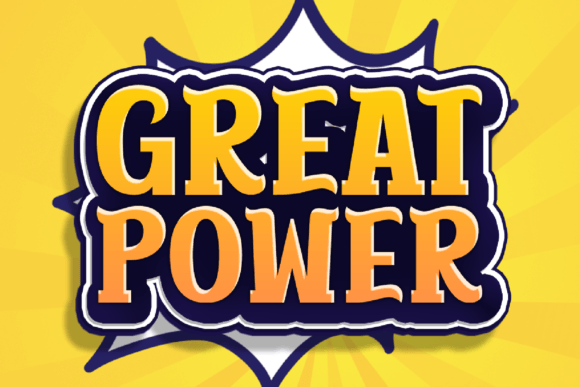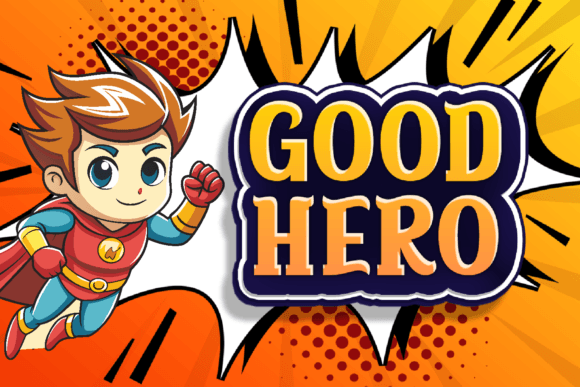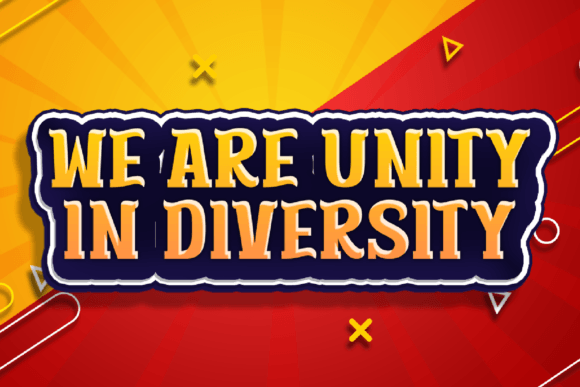
Dream Game Font: The Ultimate Choice for Children’s Comics and Playful Designs
Are you a designer, illustrator, or crafter looking for a font that can bring your children’s comic or playful design to life? Look no further than the Dream Game font! This stunning display font is specifically designed to add an energetic and engaging style to your work, making reading fun and visually exciting for young audiences.
The Charm of Dream Game Font
Dream Game font is the go-to choice for any children’s comic or playful design, and for good reason. Its hand-drawn charm and dynamic forms bring a level of personality and whimsy to your work that’s hard to find with other fonts. Whether you’re creating a comic book, a children’s book, or a playful advertisement, Dream Game font is the perfect choice to capture the imagination of your young audience.
Key Features of Dream Game Font
- Hand-drawn charm: Dream Game font has a unique, hand-drawn feel that sets it apart from other fonts. Its irregularities and quirks give it a playful, organic feel that’s perfect for children’s designs.
- Dynamic forms: The font’s dynamic forms add a level of energy and movement to your work, making it perfect for comics, animations, and other dynamic designs.
- Energetic and engaging style: Dream Game font is designed to be attention-grabbing and engaging, making it perfect for designs that need to stand out.
- Perfect for young audiences: The font’s playful, child-friendly design makes it perfect for work aimed at young audiences.
Why Choose Dream Game Font?
So why choose Dream Game font for your next project? Here are just a few reasons:
- Unique and eye-catching: Dream Game font is a one-of-a-kind font that will set your work apart from the crowd.
- Highly versatile: The font can be used for a wide range of designs, from children’s comics to playful advertisements.
- Easy to read: Despite its playful design, Dream Game font is highly legible, making it perfect for designs that need to communicate a message.
- Fun and engaging: The font’s energetic and engaging style is guaranteed to bring a smile to your audience’s faces.
Tips for Using Dream Game Font
Here are a few tips for getting the most out of Dream Game font:
- Use it for headlines: Dream Game font is perfect for headlines and titles, where its bold, attention-grabbing design can really shine.
- Experiment with colors: The font’s playful design lends itself perfectly to bright, bold colors. Don’t be afraid to get creative!
- Mix it with other fonts: Dream Game font pairs perfectly with other fonts, so don’t be afraid to experiment with different combinations.
- Have fun: Most importantly, have fun with Dream Game font! Its playful design is guaranteed to bring a smile to your face.
In conclusion, Dream Game font is a stunning display font that’s perfect for children’s comics, playful designs, and any project that needs a little extra energy and personality. Its hand-drawn charm, dynamic forms, and energetic style make it the go-to choice for designers and crafters looking to bring their work to life. So why not give it a try? Your audience will thank you!